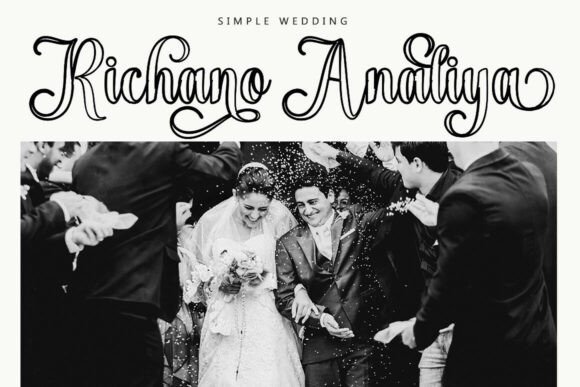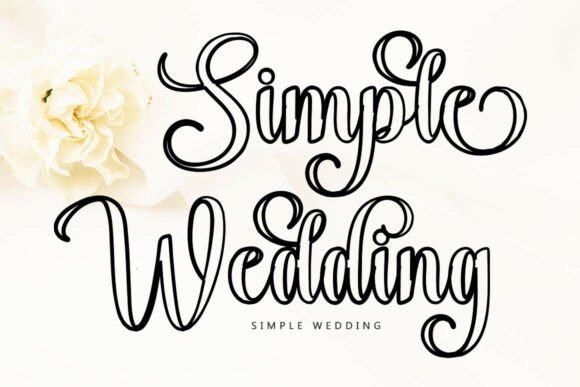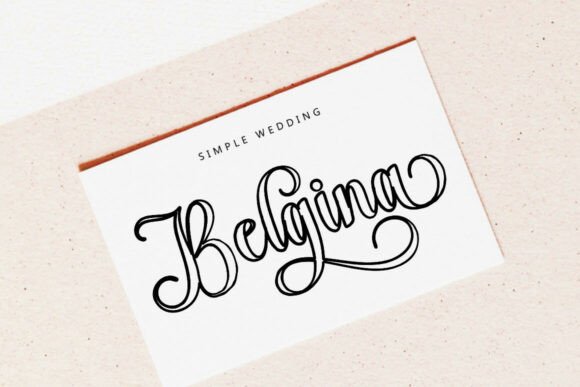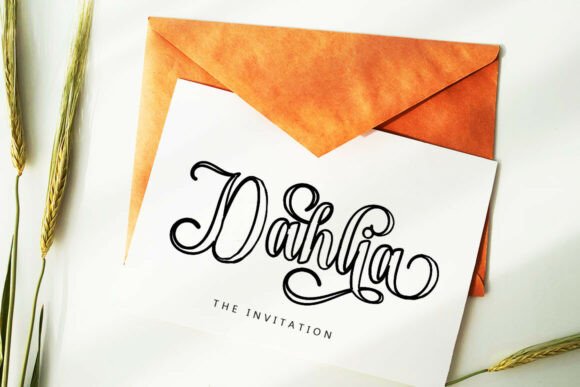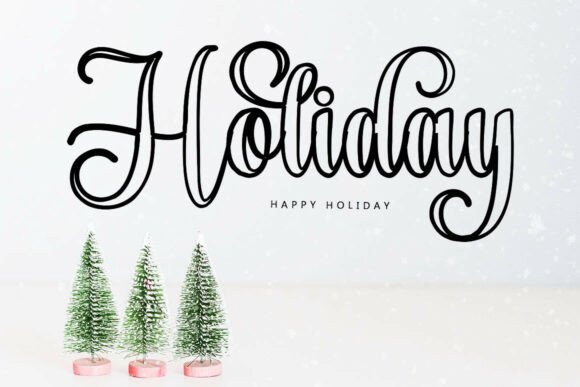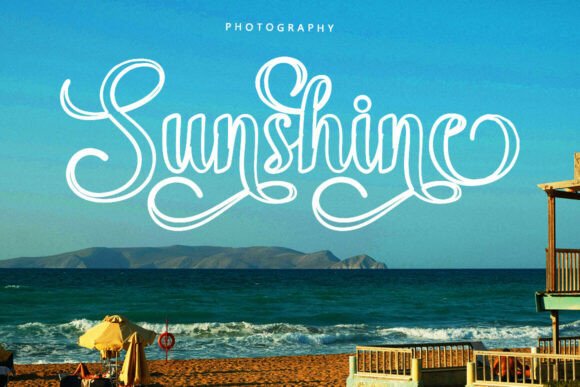
Elevate Your Typography with Black Stylish Outline: The Ultimate Font for Modern Luxury
In the world of typography, the right font can make all the difference in conveying the desired tone and aesthetic of your design. For those seeking to infuse their projects with a touch of modern luxury and airy sophistication, Black Stylish Outline is the perfect solution. This stunning font reimagines the classic high-end calligraphy script into a clean, hollowed-out outline variant, offering a unique blend of elegance and refinement.
The Art of Elegance: A Study in Contrasts
Black Stylish Outline preserves the dramatic, sweeping flourishes and dancing calligraphic rhythm that made its predecessor a beloved choice among designers, while removing the solid fill to create an exceptionally light and sophisticated presence on the page. This masterful balance of contrasting elements results in a font that exudes upscale romance without overwhelming the layout.
Endless Possibilities: Where to Use Black Stylish Outline
One of the most versatile fonts you’ll ever use, Black Stylish Outline is perfect for a wide range of applications, including:
- High-end wedding invitations: Add a touch of luxury and sophistication to your wedding stationery with this beautiful outline font.
- Minimalist fashion lookbooks: Showcase your fashion designs with elegance and refinement, using Black Stylish Outline to create a lasting impression.
- Elegant boutique logos: Establish your brand’s high-end identity with a custom logo featuring this stunning font.
- Cosmetic product packaging: Elevate your beauty brand with sophisticated packaging that incorporates Black Stylish Outline.
- Classy editorial headlines: Make a statement with your editorial content, using this font to add a touch of luxury and glamour.
Layering and Versatility: Unlocking Creative Possibilities
One of the standout features of Black Stylish Outline is its ability to layer flawlessly over background photography or vibrant color gradients. This allows designers to experiment with different textures and colors, creating unique and captivating visual effects that elevate their designs to new heights.
Why Choose Black Stylish Outline?
With Black Stylish Outline, you can:
- Add a touch of modern luxury to your typography
- Create elegant and sophisticated designs that speak fluent luxury
- Experiment with layering and texture to add depth and interest to your designs
- Produce high-end designs that stand out from the crowd
In conclusion, Black Stylish Outline is the ultimate font for designers and crafters seeking to infuse their projects with a touch of modern luxury and airy sophistication. With its unique blend of elegance and refinement, this font is sure to elevate your typography and leave a lasting impression on your audience. So why wait? Let your text breathe with Black Stylish Outline, and experience the art of luxury typography for yourself.